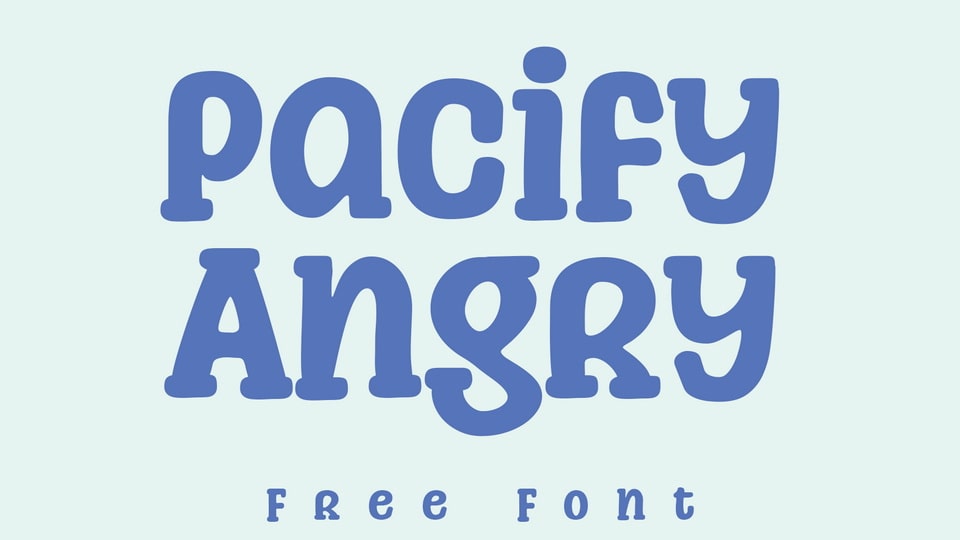
Download Pacify Angry font, a fun and playful display typeface. Whimsical and a bit quirky, Pacify Angry font will brighten up each of your designs!
Designer: Niskala Huruf